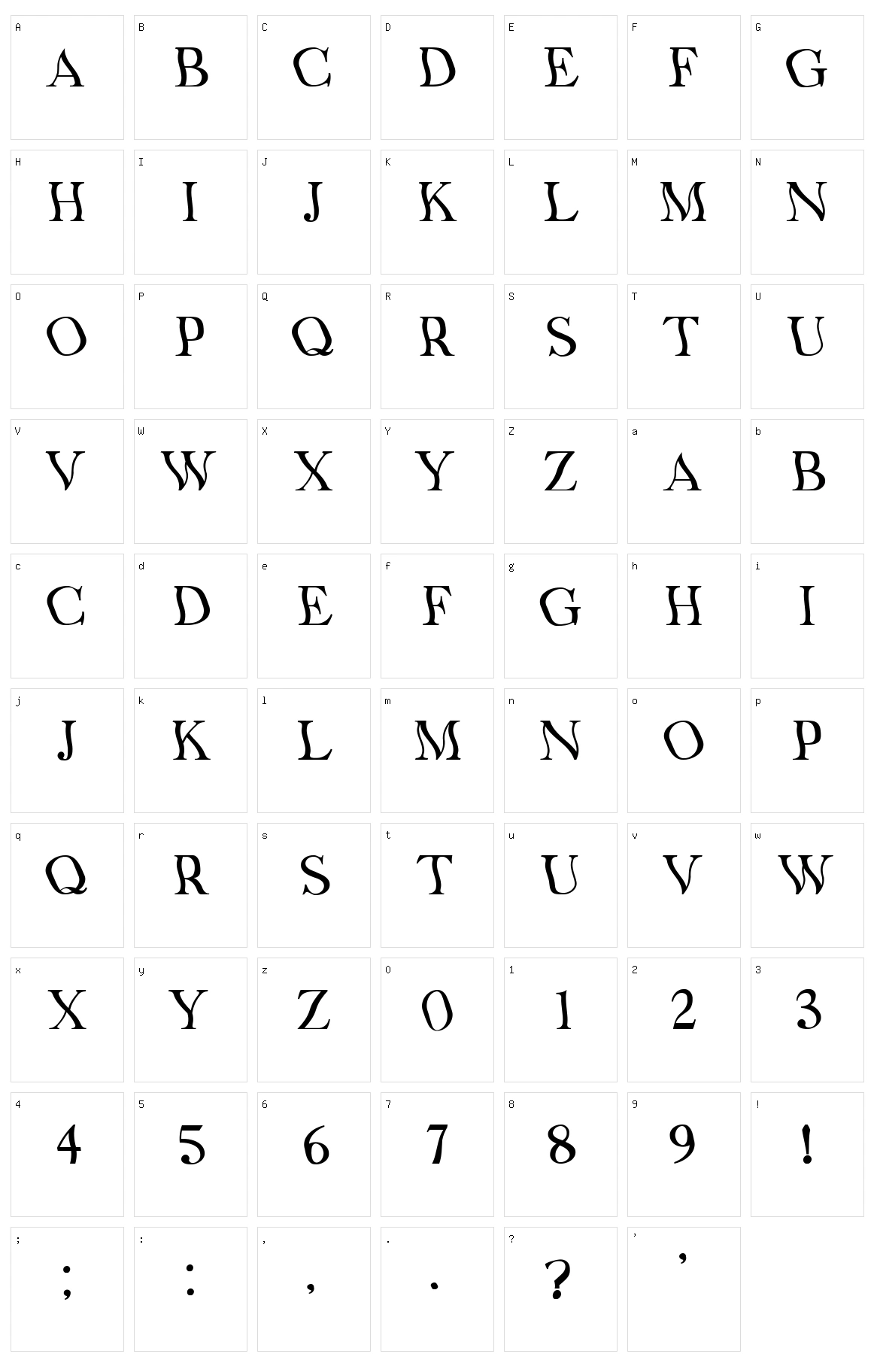
The free font Water Resistant is carefully designed by Vladimir Nikolic, showcasing a thoughtful balance of creativity and usability and falls under the Distorted font style. When you download the ZIP file, it contains only 23.76 KB of font files, making it lightweight and quick to download. Please review the license details below to understand permitted usage and distribution rights. If license information is not available, we recommend using this font for personal projects only or contacting the author directly for commercial usage permissions.